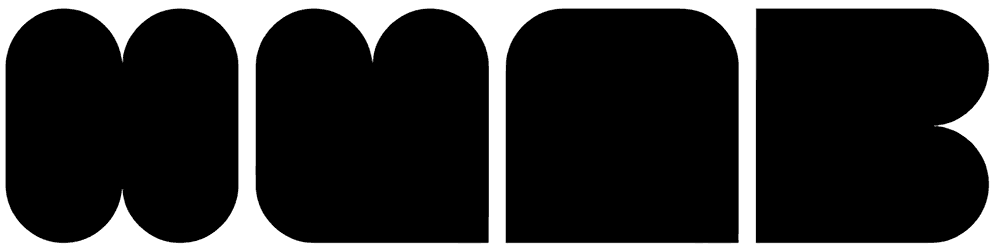
Huab Font
Huab is a heavy, solid geometric font that emits a firm, serious vibe from itself. It takes your design skill one step further, making it look assertive and unique. You’d better know before downloading that lowercase letters are not supported. Whether you are working on a logotype project, printing, or book covers, this tech font will get the job done.
Huab is a font made with minimal circles and squares.
It is designed to eliminate font functionality, make it look like a geometric figure,
and to be used as a design element.It will be awesome for any your special projects including :
headlines, promotion, events, branding, advertising, magazine,
and any projects that need unique style.————————————-